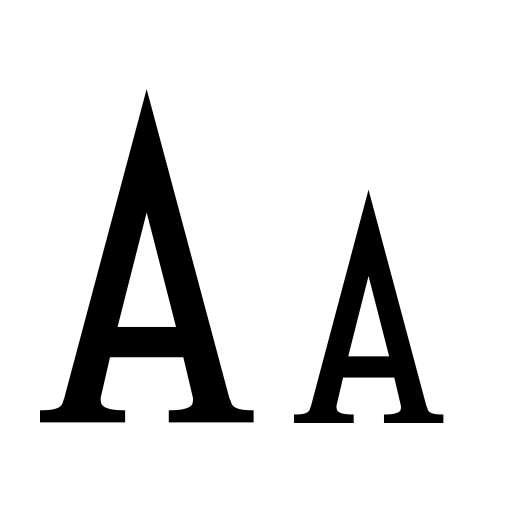
Caraka is an elegant script-inspired serif font with a tall, narrow structure and medium contrast in its strokes. Its flowing curves and decorative details lend a graceful, vintage feel, making it perfect for artistic branding, invitations, and stylish headlines where a touch of sophistication is desired. This font works well in designs that seek a unique, handcrafted appearance with a refined yet approachable personality.
Caraka Font
About Caraka Font
| Designer | Edy Bagus P |